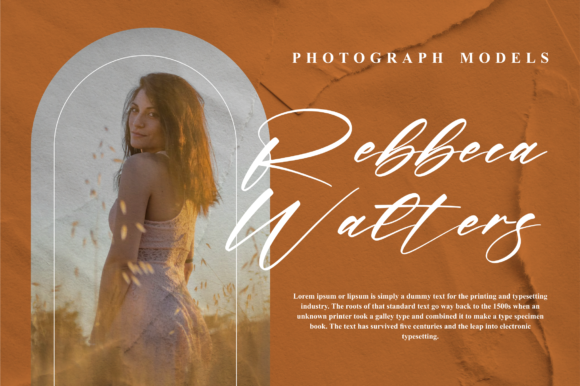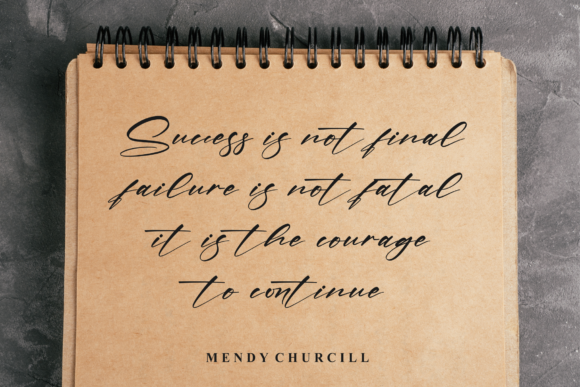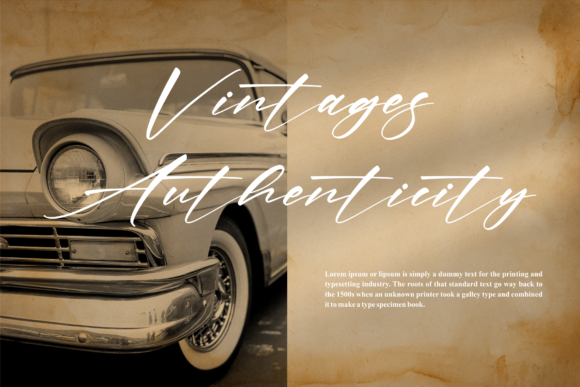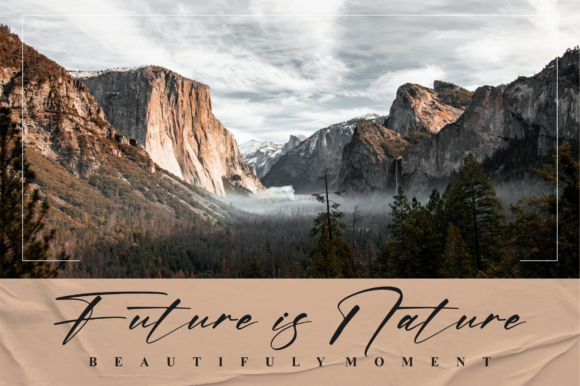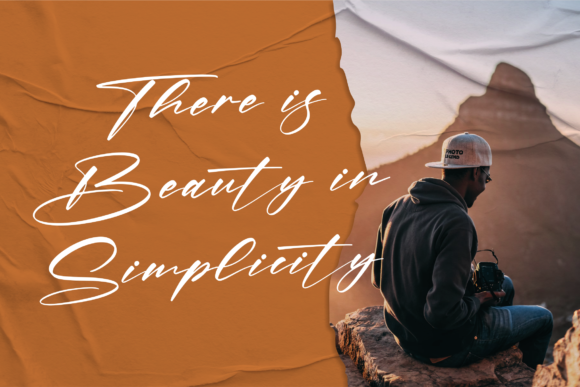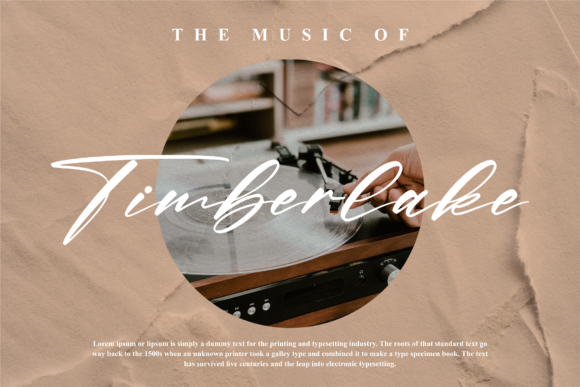
Introduction to Historia Signate Font
Historia Signate is a stylish and delicate script font.
It features a relaxed flow and it is incredibly adaptable Add it confidently to your projects, and you will love the results.
Key Features of Historia Signate Font
Why Choose Historia Signate Font?